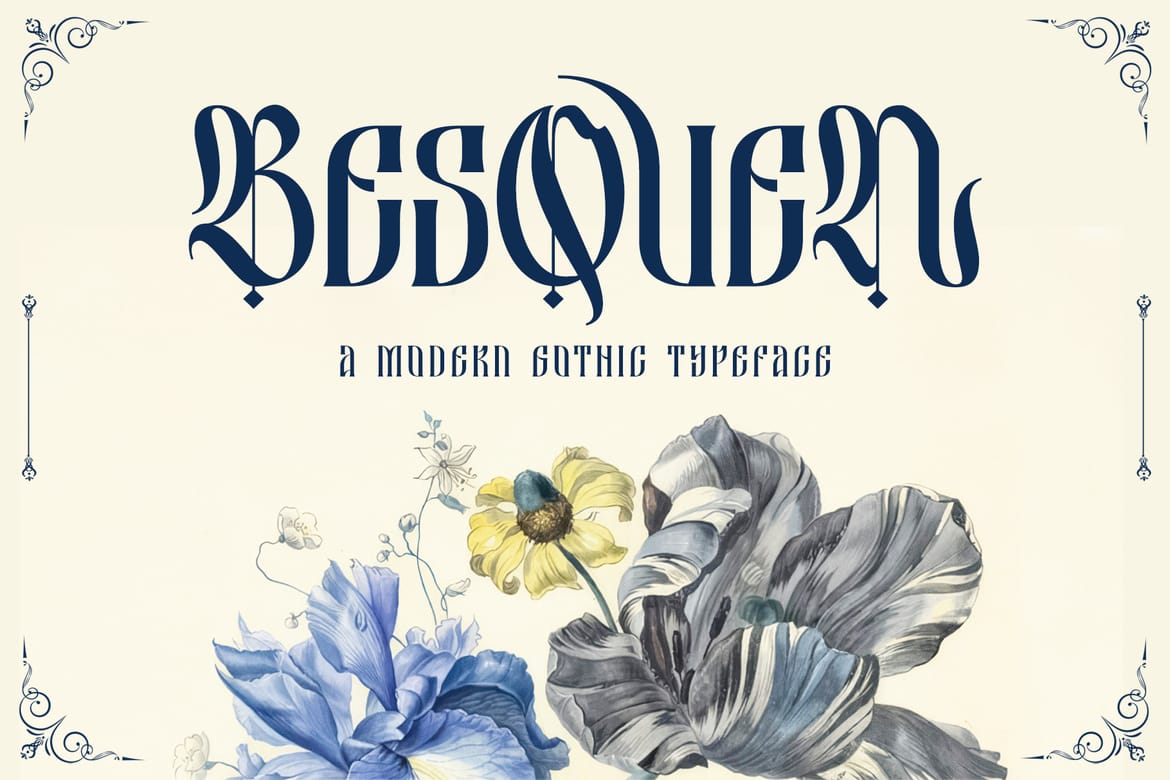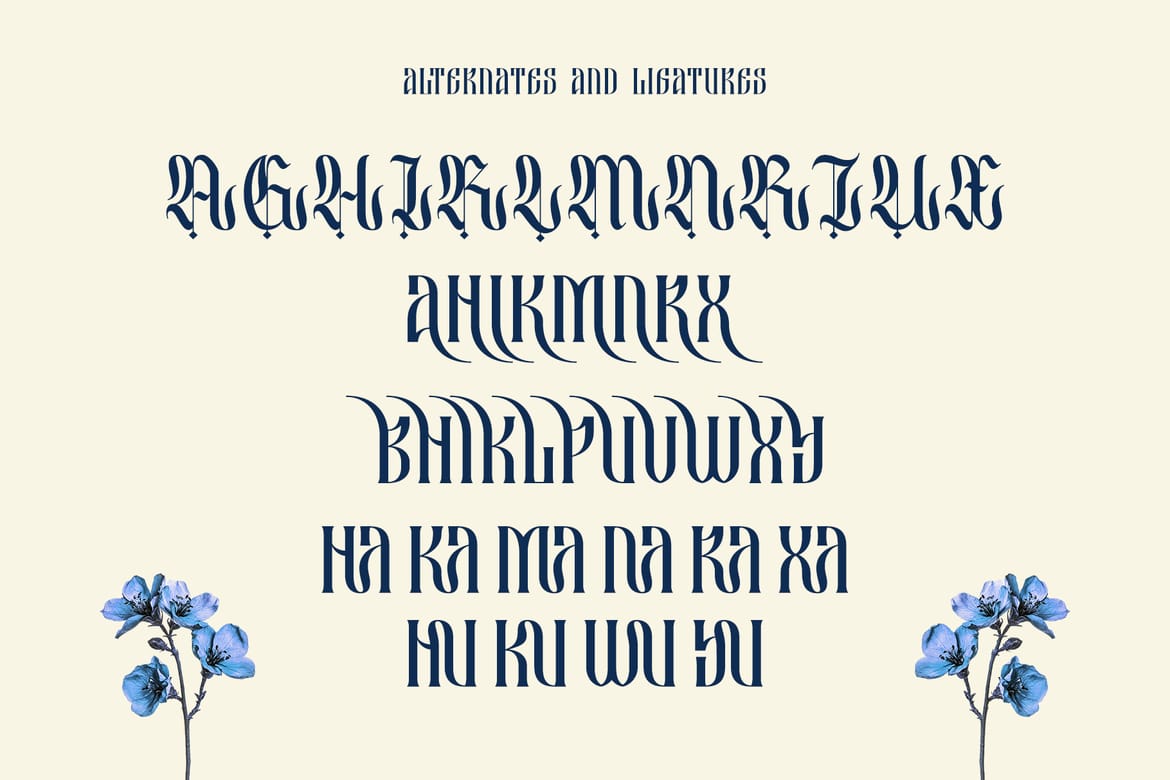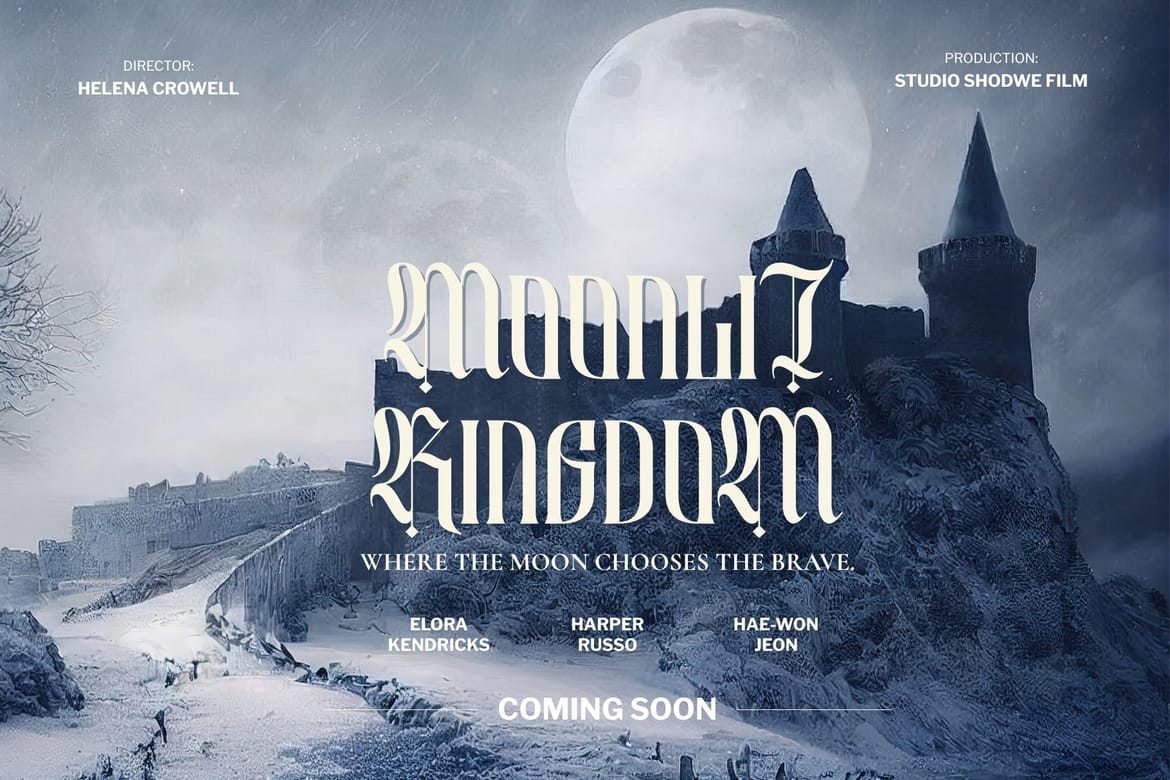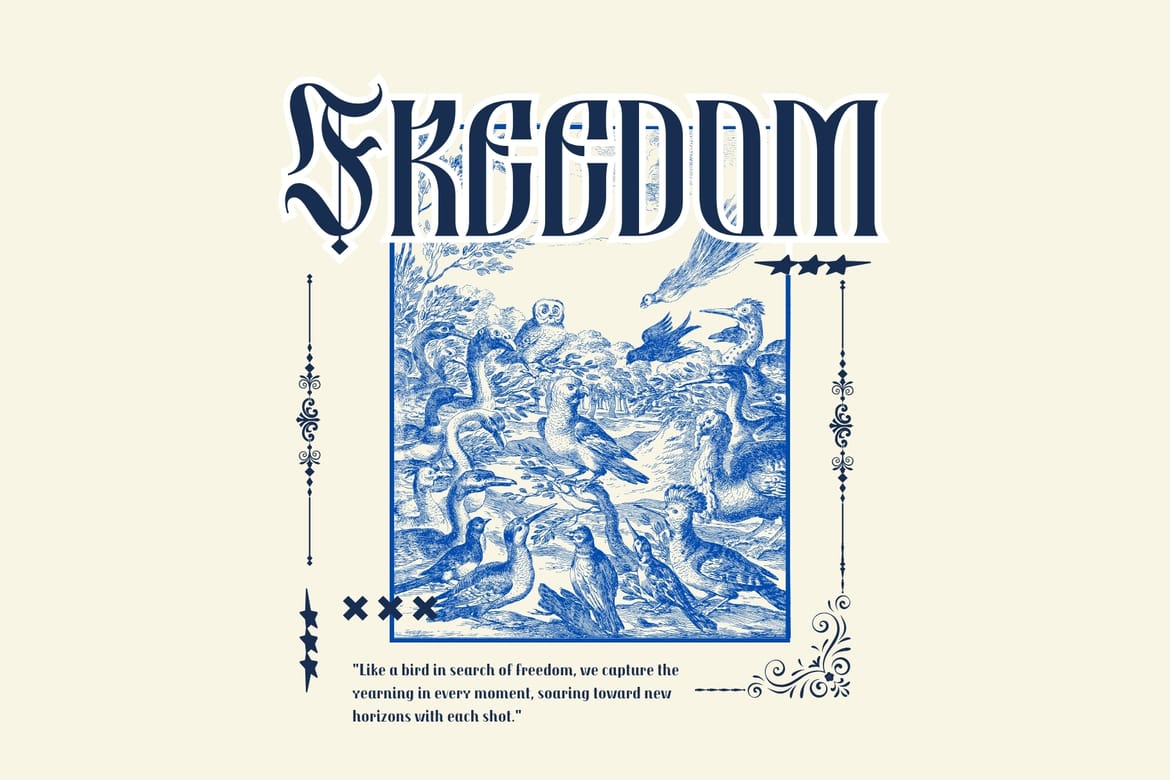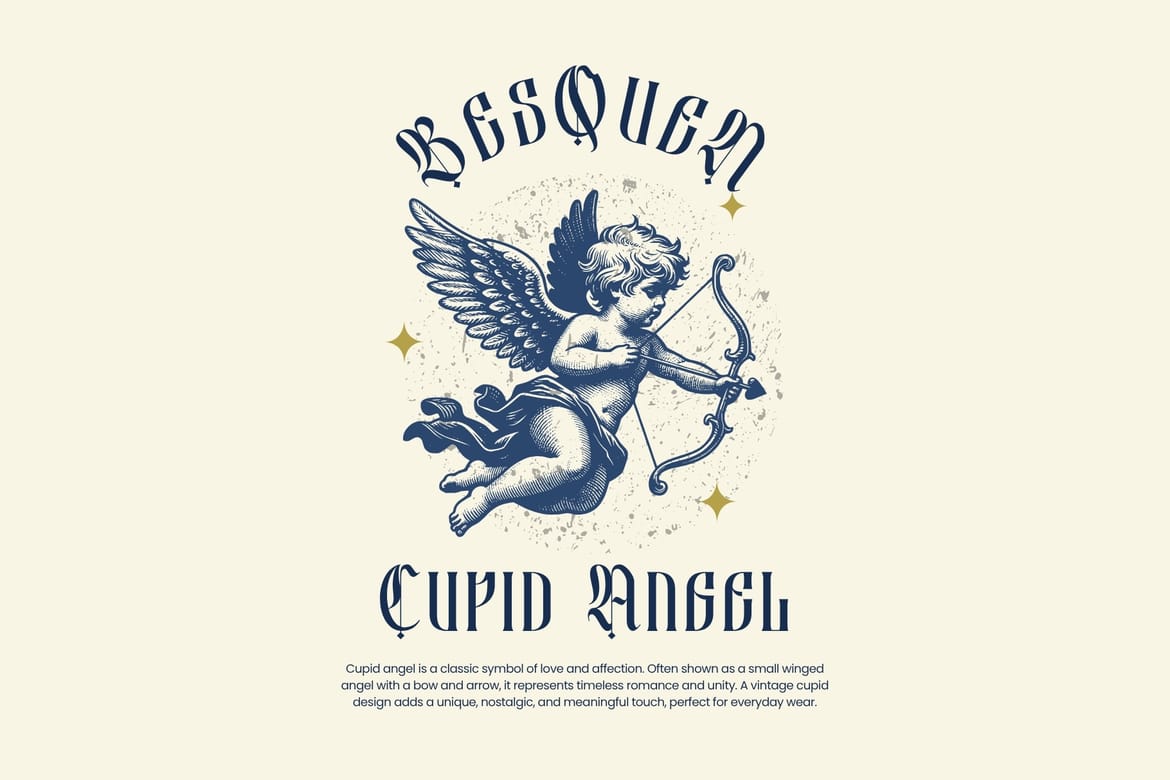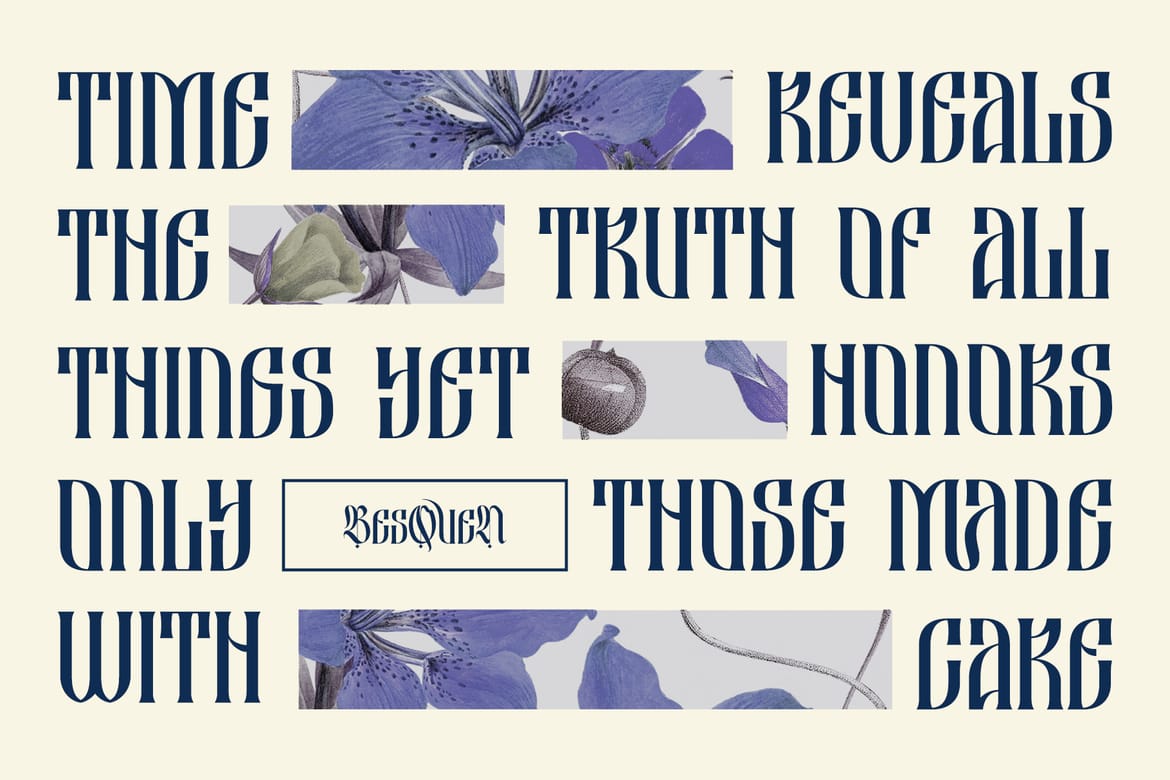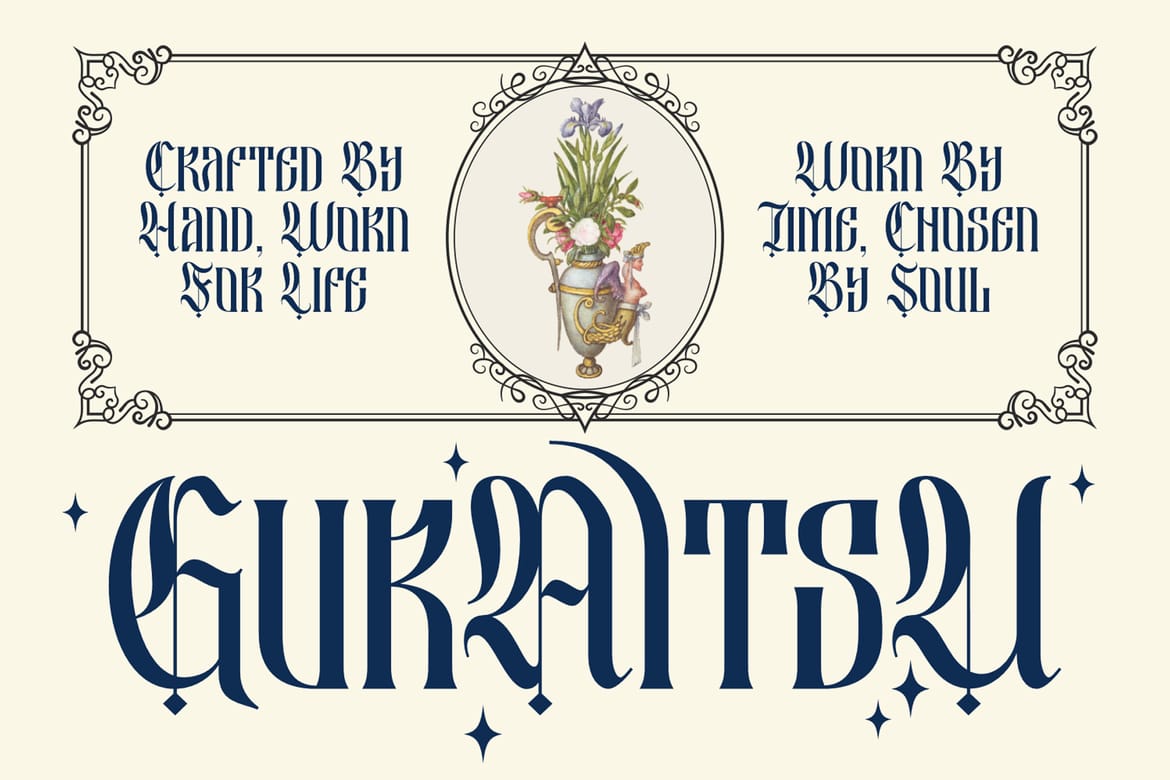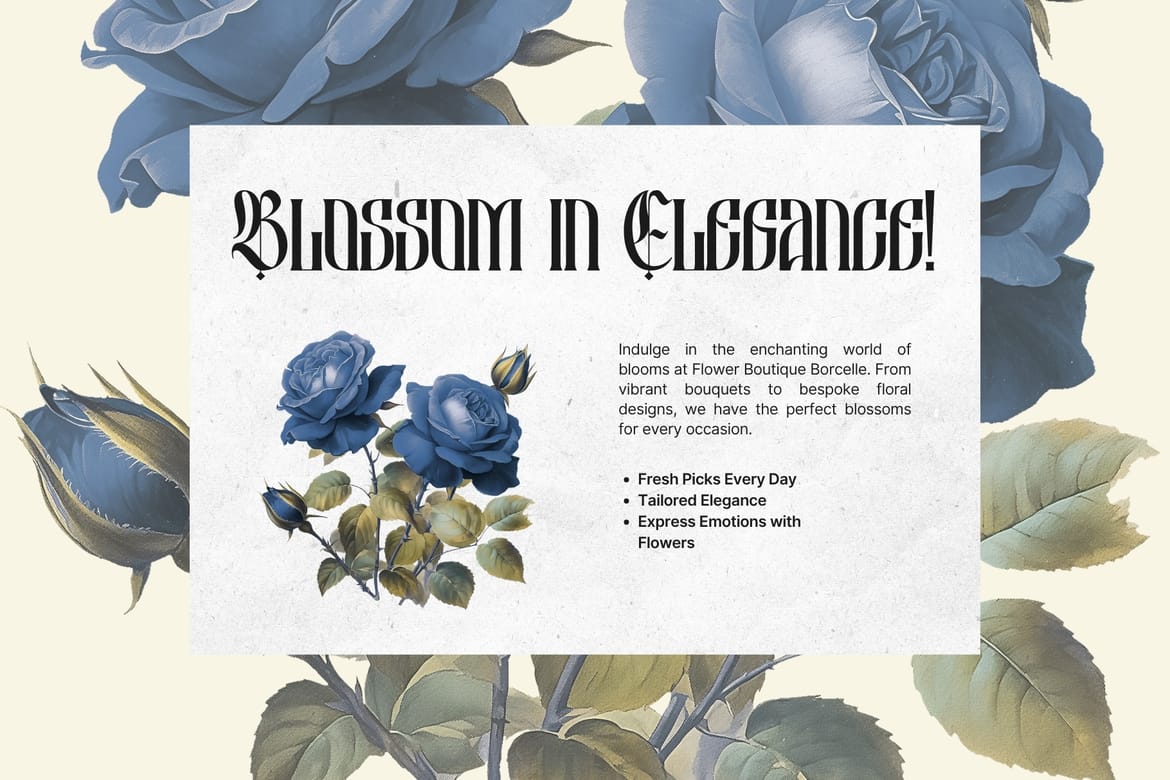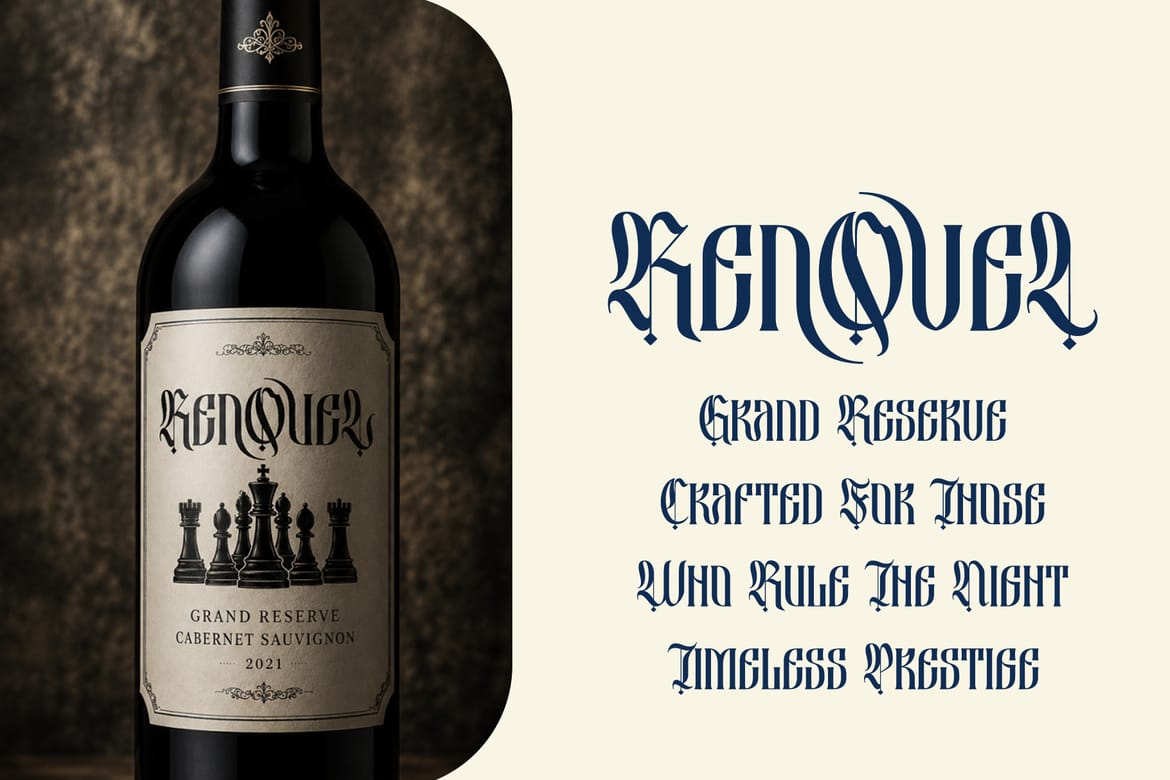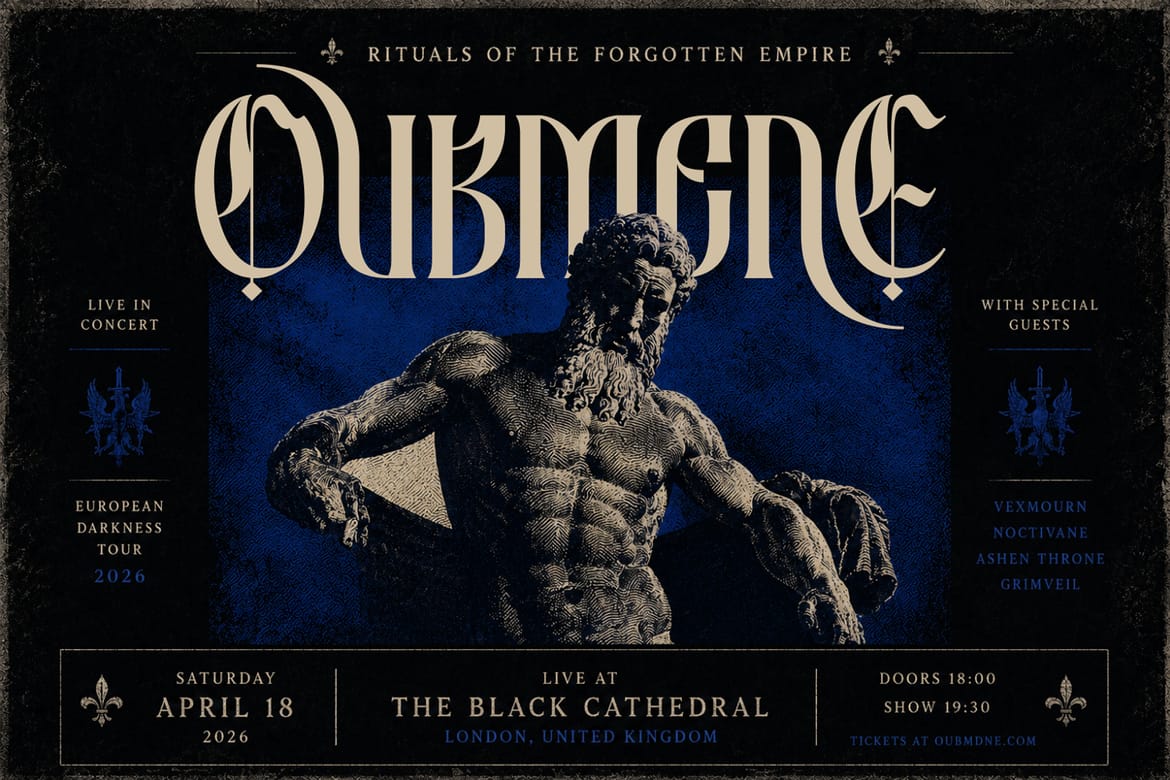
Besquen Blackletter Font is a refined modern gothic typeface that blends classic blackletter inspiration with contemporary elegance. Designed with dramatic curves, sharp ornamental strokes, and stylish vertical contrast, Besquen delivers a luxurious medieval aesthetic while remaining highly readable for modern branding and editorial design.